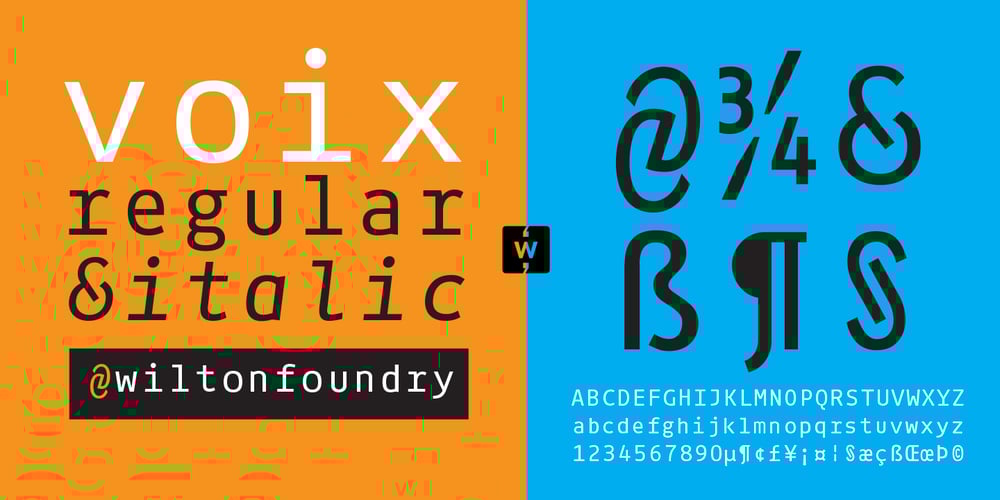
Voix
Voix font
Voix Font Family was designed by Robbie de Villiers and published by Wilton Foundry. Voix contains 2 styles and family package options. VOIX Regular and Italic is a stylish, modern & monospaced font ready to make your work hard for you! It has several unique glyphs that create a unique style. VOIX is not your typical monospaced boring font – from the outset the goal was to develop an exuberant, dynamic and contemporary mono-spaced font. Ideal for coding, writing and has plenty of attitude to stretch into display formats!